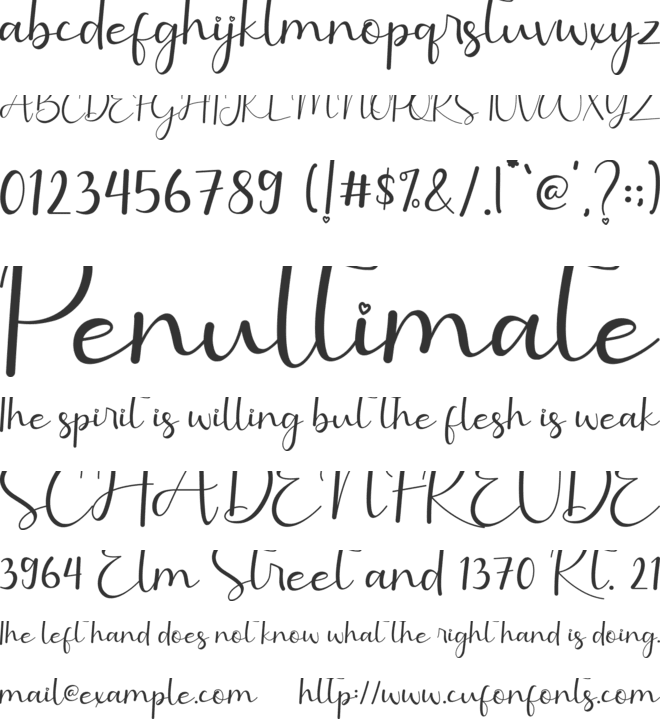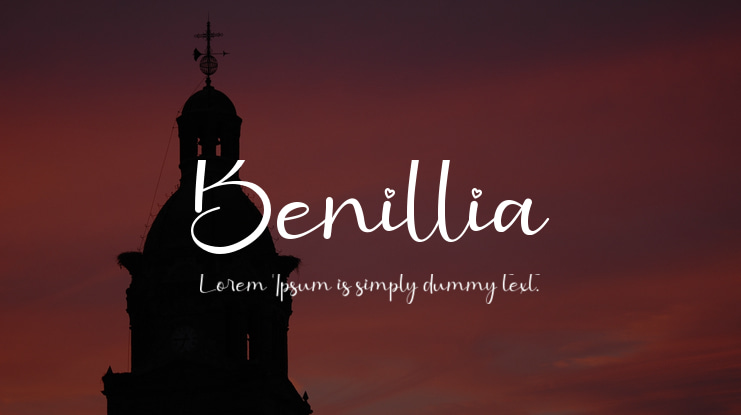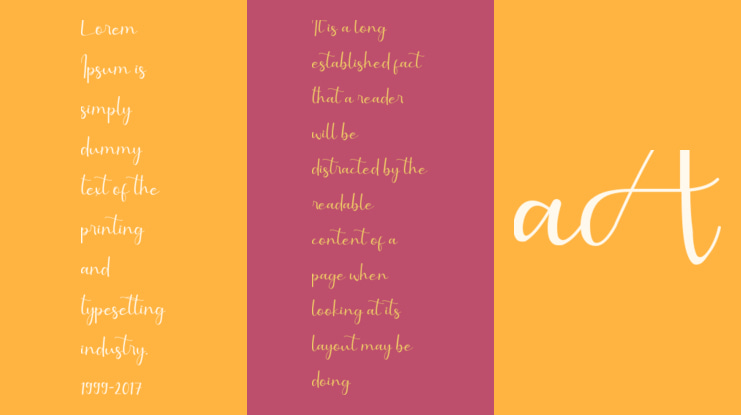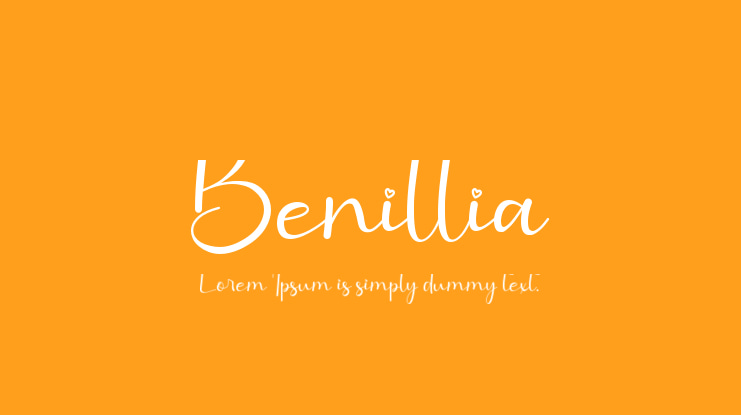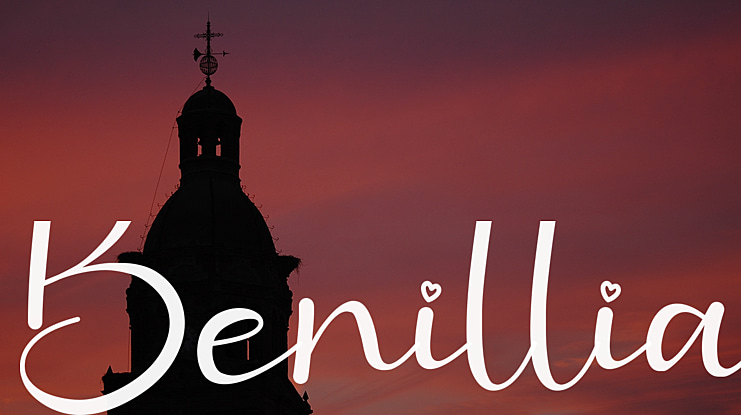
Benillia Font
Benillia is a sweet and delicate handwritten font. It looks stunning on wedding invitations, thank you cards, quotes, greeting cards, logos, business cards and every other design which needs a handwritten touch.